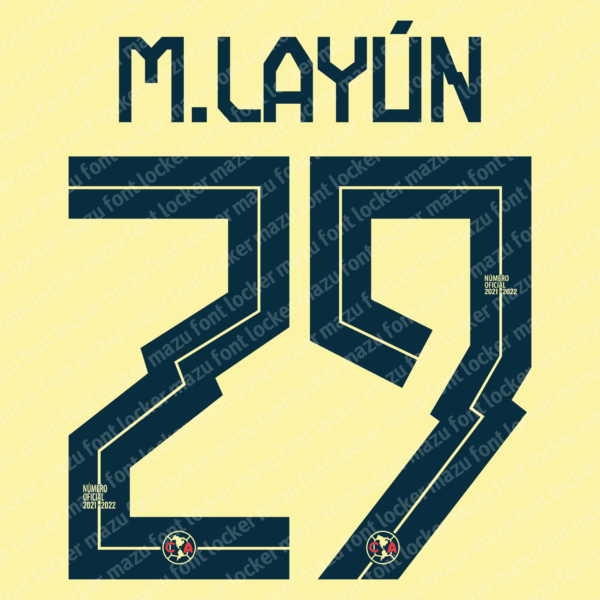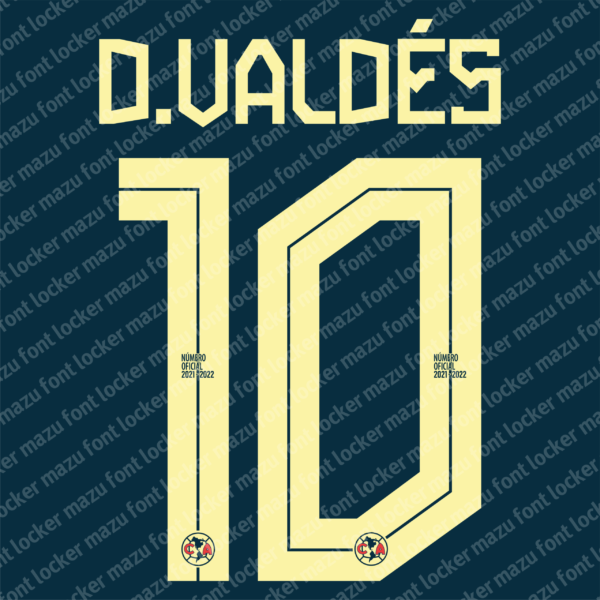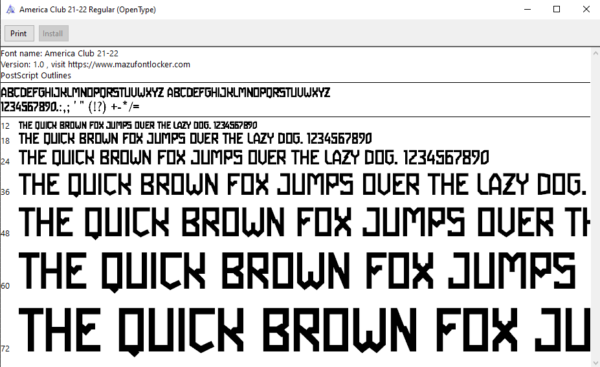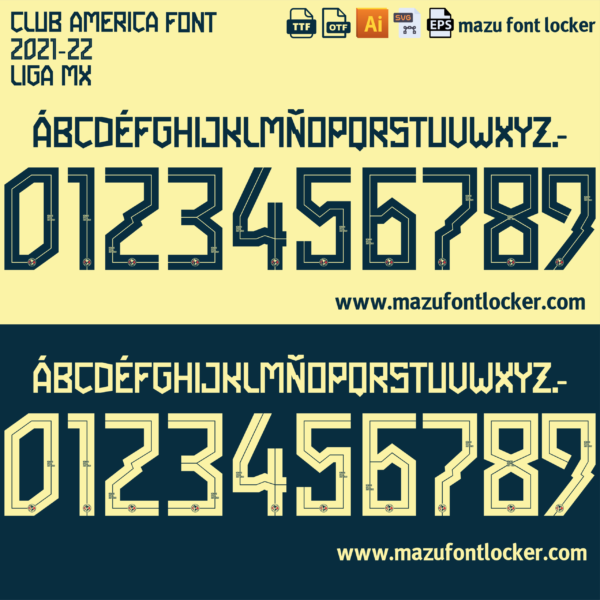
Club America 2021-2022 Font Vector – Glorious Águilas Masterpiece
Get the official Club America 2021-2022 jersey look with this premium vector font set. This high-quality font is meticulously crafted to replicate the authentic lettering and numbering used by Club America for the 2021-2022. Perfect for kit designers, fans, and professional sportswear customisation, it ensures a sharp, match-day finish for both digital and print projects.
Club America 2021-2022 Font Vector – Authentic Jersey Lettering
Club America 2021-2022 Font is a high-quality football jersey font vector created to replicate the official lettering and numbering style used during the iconic 2021-2022 Season. Perfect for designers, football fans, and jersey customisation projects, this font set delivers an authentic and professional match-day appearance.
Inspired by the original Club America 2021-2022 team kit, every letter and number has been carefully recreated to ensure accurate retro styling for both digital and print projects.
• Authentic 2021-2022 Club America jersey lettering style
The authentic lettering style helps recreate the classic look of the Club America 2021-2022 kit with professional accuracy.
Unlike generic jersey fonts, this set is designed with a strong focus on authenticity and accuracy. Every detail is based on the original match lettering style used during the 2021-2022 season, helping designers and collectors create realistic football shirt designs.
This Club America 2021-2022 font vector set is designed for authentic football jersey customization and works perfectly for retro football projects, collector designs, and professional sportswear artwork.